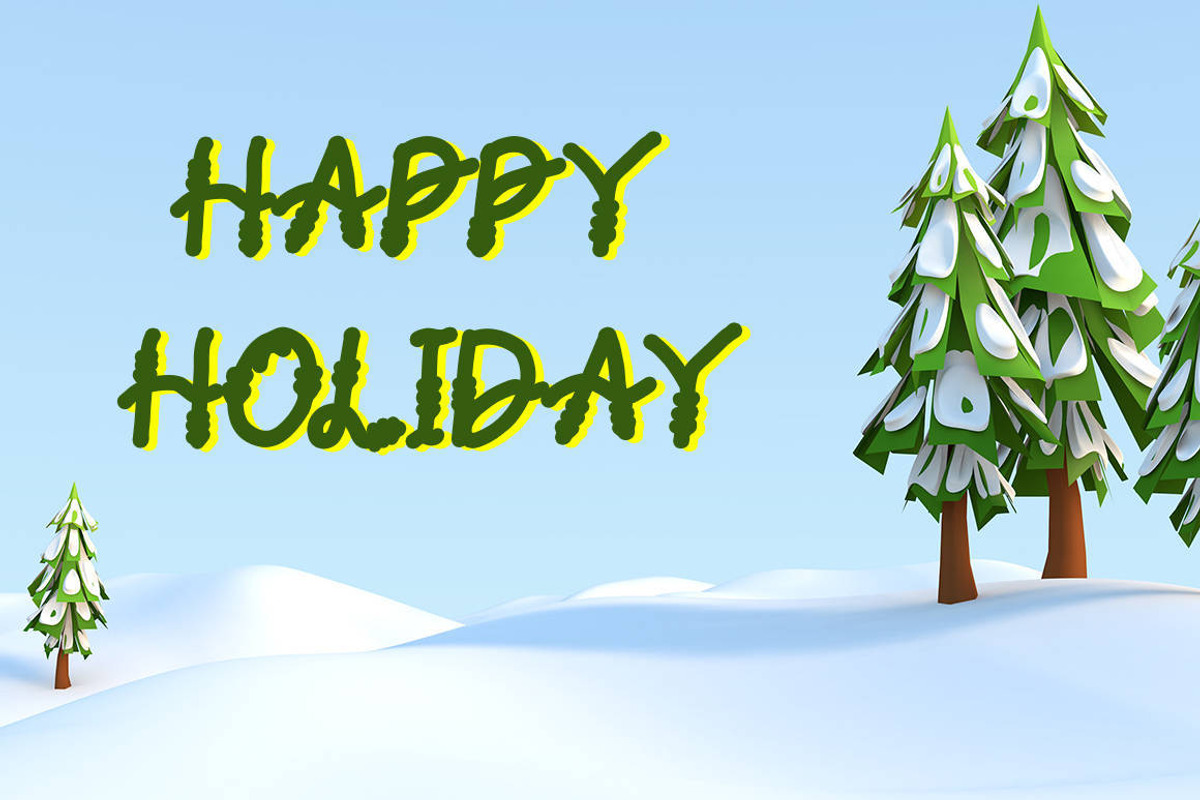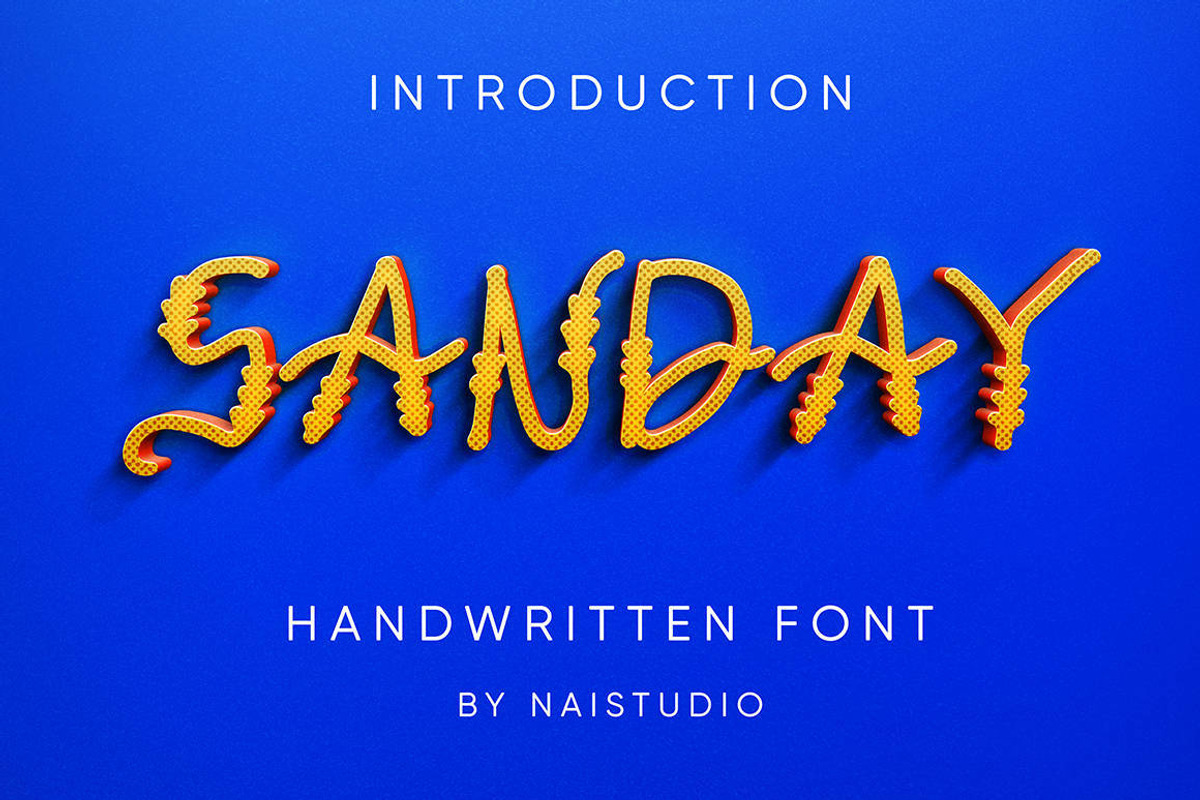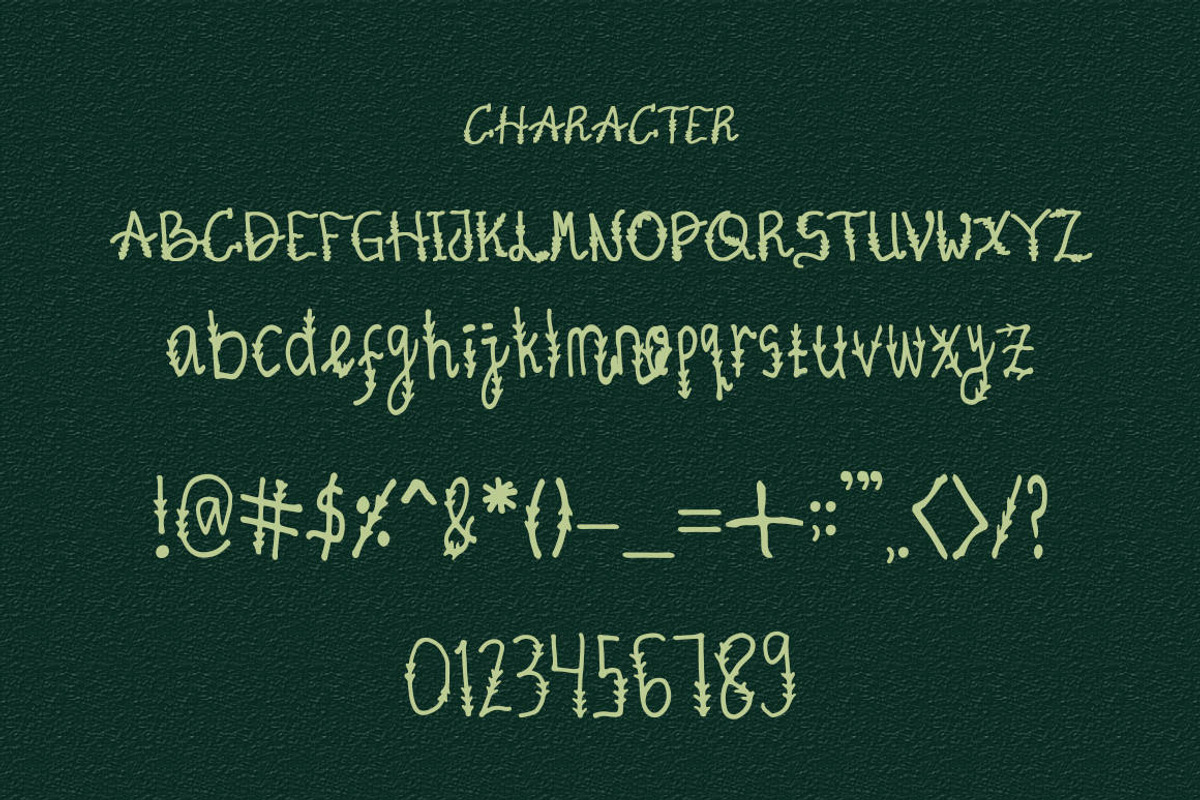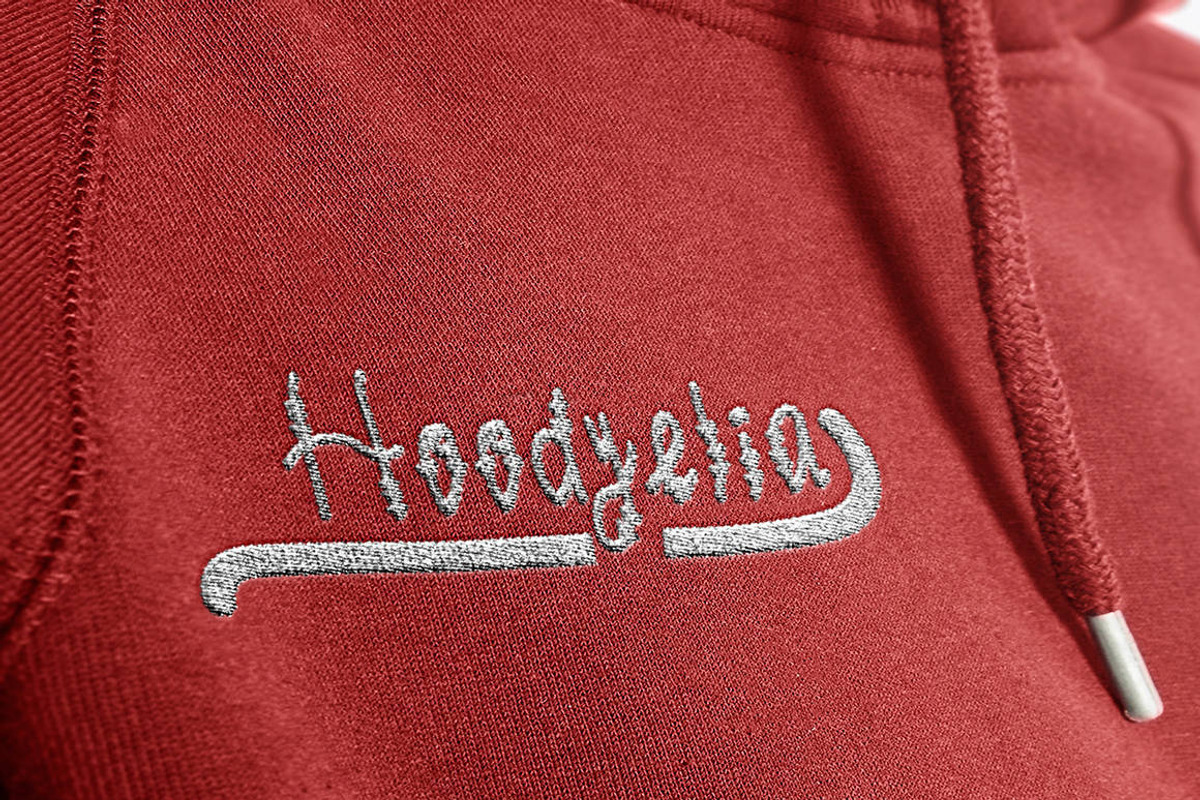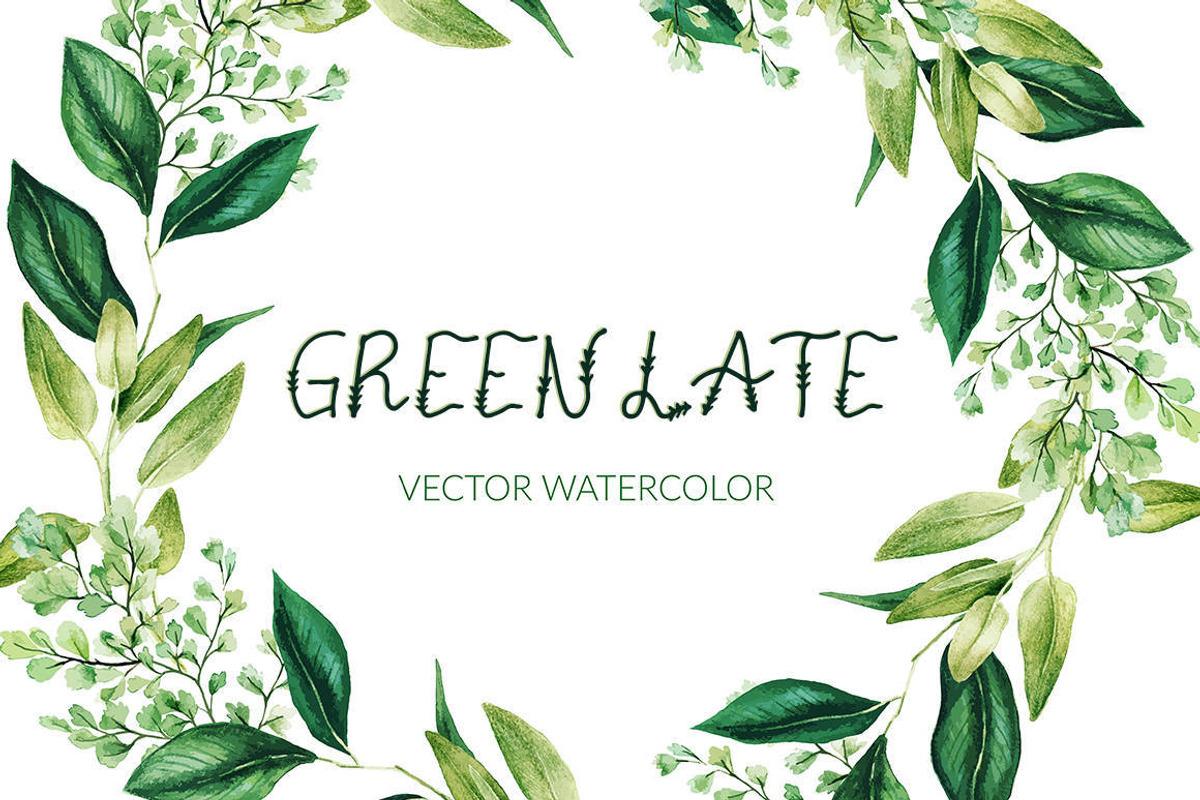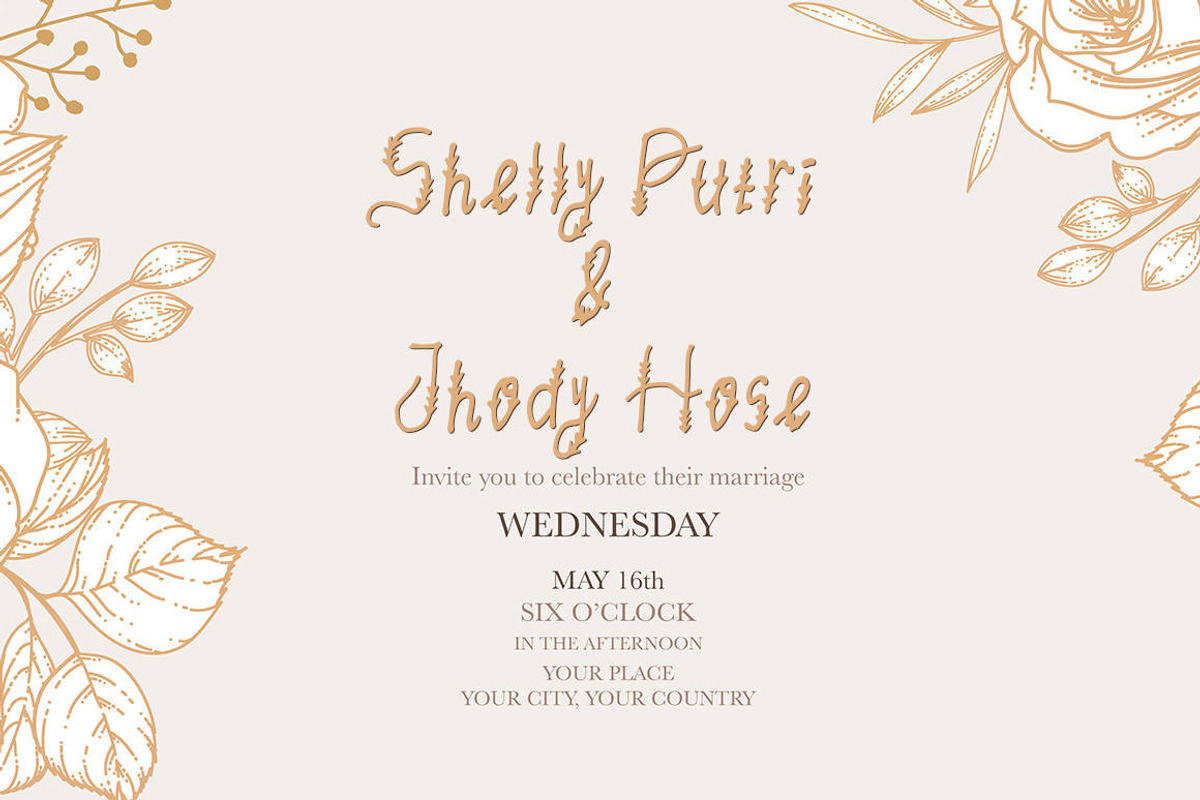
Sanday - Creative Handwritten Font
Introducing Sanday - Creative Handwritten Font
Sanday is a delicate, elegant and flowing handwritten font. It has beautiful and well balanced characters and as a result, it matches a wide pool of designs. Add it to your most creative ideas and notice how it makes them come alive!